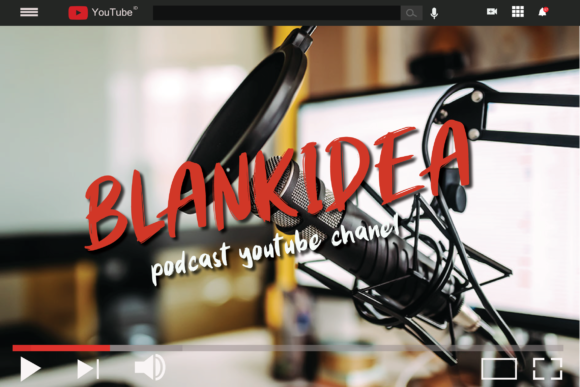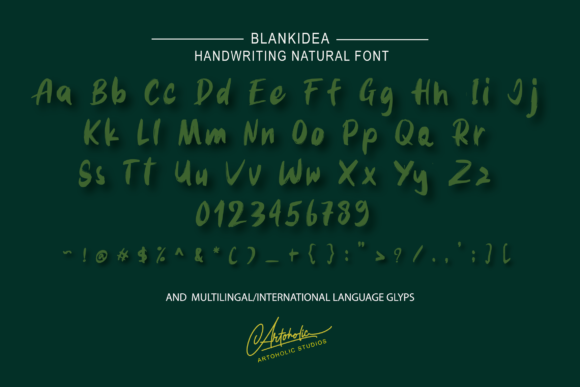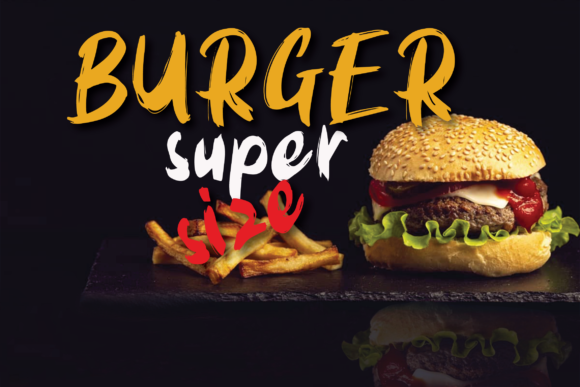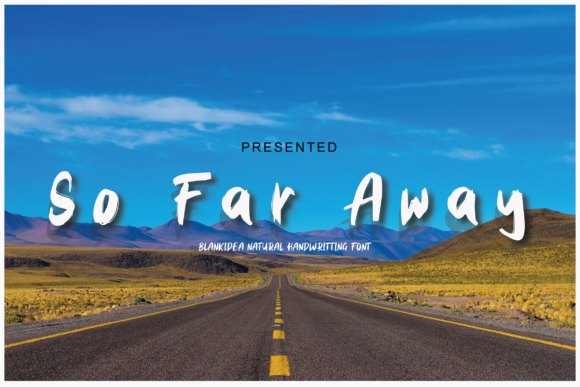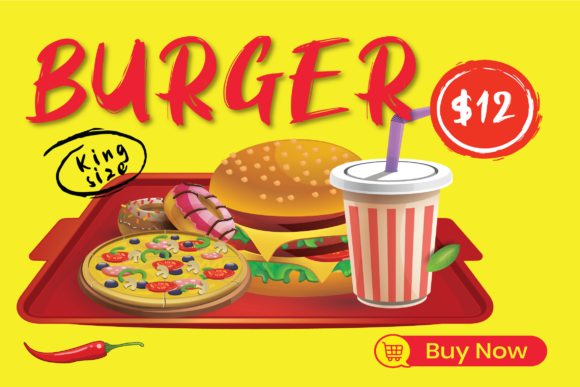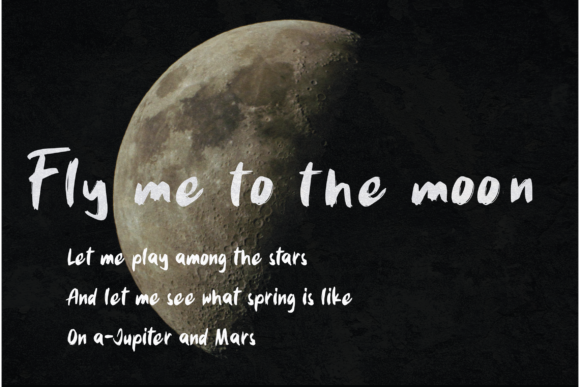
Introducing Blankidea Font: The Ultimate Handwritten Companion for Designers and Crafters
Are you tired of using the same old fonts for your digital designs, crafts, and presentations? Look no further! Blankidea Font is here to revolutionize your creative process with its unique, brushed, and painted handwritten style. This versatile font is perfect for a wide range of projects, from greeting cards to digital designs, and is sure to become your go-to font for any occasion.
What is Blankidea Font?
Blankidea Font is a cool, brushed, and painted handwritten font that exudes a sense of creativity and playfulness. Its unique texture and imperfections give it a personal touch, making it perfect for designers and crafters who want to add a human element to their work. Whether you’re creating digital designs, crafting handmade cards, or making presentations, Blankidea Font is the perfect choice.
Key Features of Blankidea Font
- Handwritten style: Blankidea Font has a beautiful, handwritten style that adds a personal touch to any project.
- Brushed and painted texture: The font’s brushed and painted texture gives it a unique, organic feel that’s perfect for crafts and digital designs.
- Versatile: Blankidea Font is suitable for a wide range of projects, from greeting cards to digital designs, presentations, and more.
Uses for Blankidea Font
Blankidea Font is perfect for a variety of projects, including:
- Crafts: Use Blankidea Font to add a personal touch to your handmade crafts, such as greeting cards, scrapbooking, and more.
- Digital design: Add a human element to your digital designs, such as social media graphics, blog posts, and more.
- Presentations: Use Blankidea Font to create engaging and visually appealing presentations for work or school.
- Greeting cards: Create beautiful, handmade greeting cards for special occasions using Blankidea Font.
Why Choose Blankidea Font?
So why choose Blankidea Font over other fonts? Here are just a few reasons:
- Unique style: Blankidea Font has a unique, handwritten style that’s sure to stand out from the crowd.
- High-quality: The font is high-quality and easy to read, making it perfect for digital designs and crafts.
- Versatile: Blankidea Font is suitable for a wide range of projects, making it a great addition to any designer’s or crafter’s toolkit.
Tips for Using Blankidea Font
Here are a few tips for getting the most out of Blankidea Font:
- Experiment with different sizes: Try using Blankidea Font in different sizes to add visual interest to your projects.
- Combine with other fonts: Combine Blankidea Font with other fonts to create a unique and visually appealing design.
- Use for headlines and body text: Use Blankidea Font for headlines and body text to create a cohesive and visually appealing design.
Blankidea Font is a versatile and unique handwritten font that’s perfect for designers and crafters. Its brushed and painted texture gives it a personal touch, making it perfect for a wide range of projects. Whether you’re creating digital designs, crafts, or presentations, Blankidea Font is sure to become your go-to font. So why wait? Download Blankidea Font today and start creating!